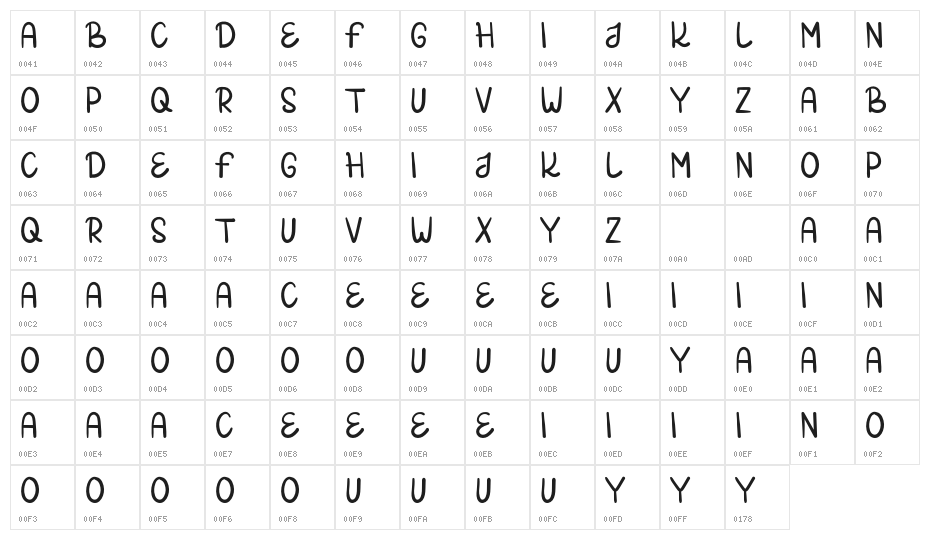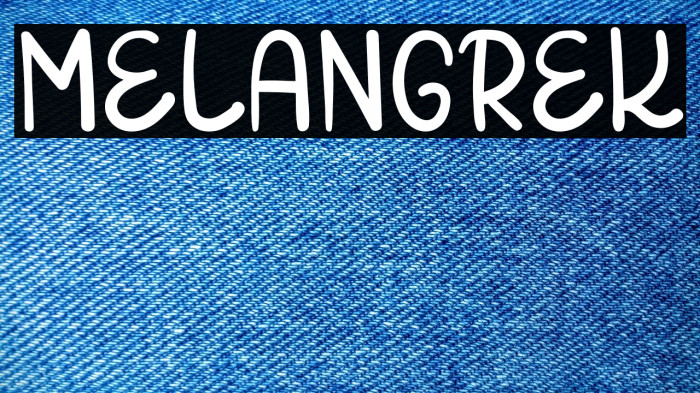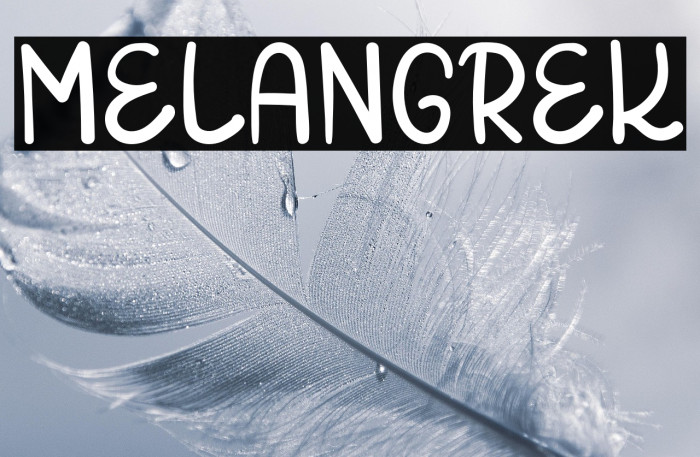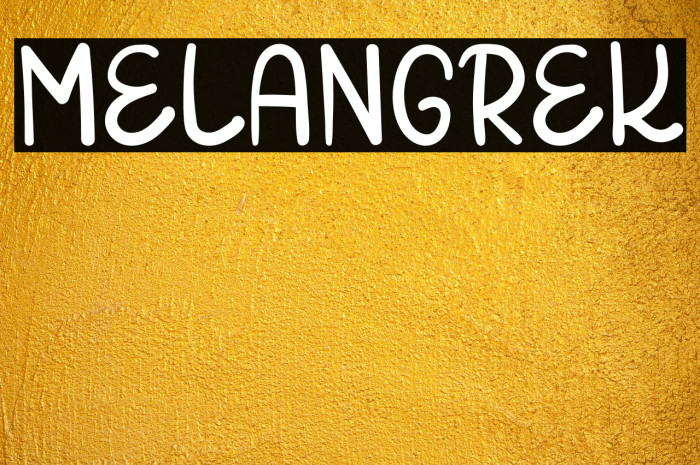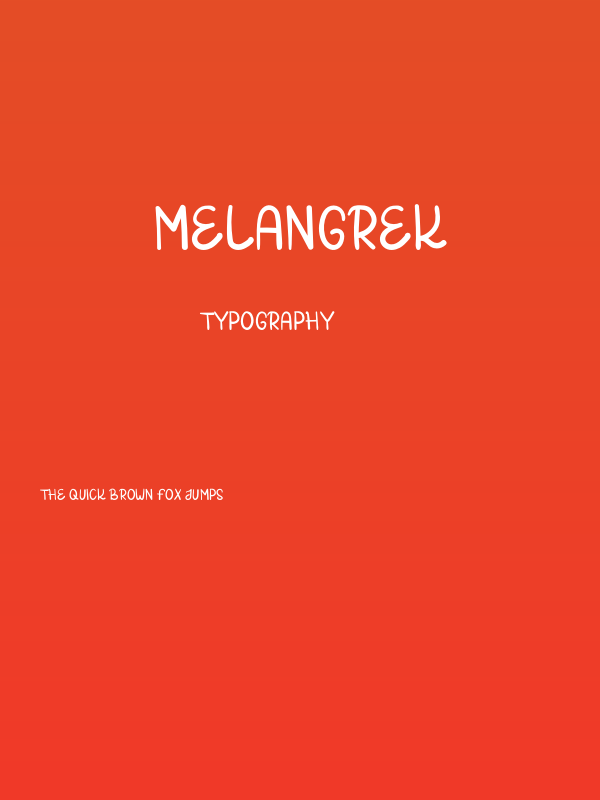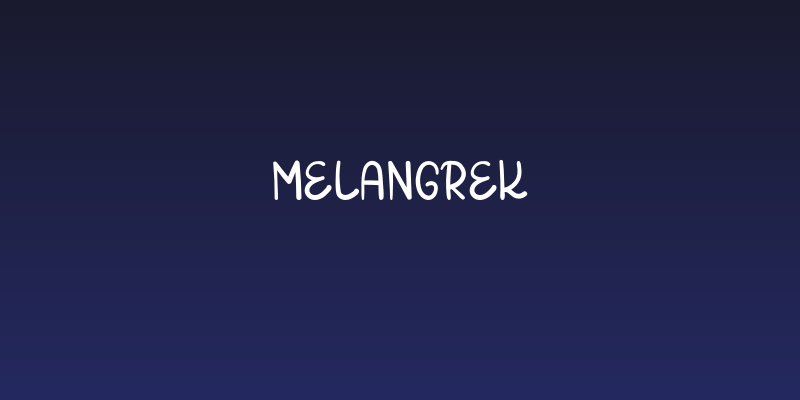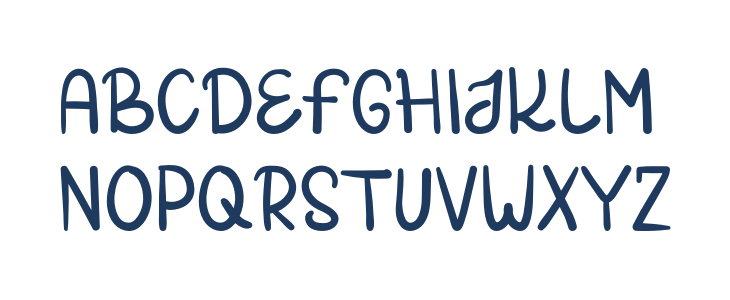
MELANGREK Font
MELANGREK Description
This font features a playful and casual style with rounded edges and a handwritten appearance. The uppercase letters are bold and slightly irregular, giving them a friendly and approachable feel. The strokes are consistent in weight, providing a uniform look across all characters. The font lacks lowercase letters and numbers, focusing solely on uppercase characters. Its simplicity and charm make it suitable for informal and creative projects. The spacing between characters is balanced, ensuring readability while maintaining its whimsical nature.
| Proposed Projects | Ideal for greeting cards, children's books, playful branding, and casual invitations. |